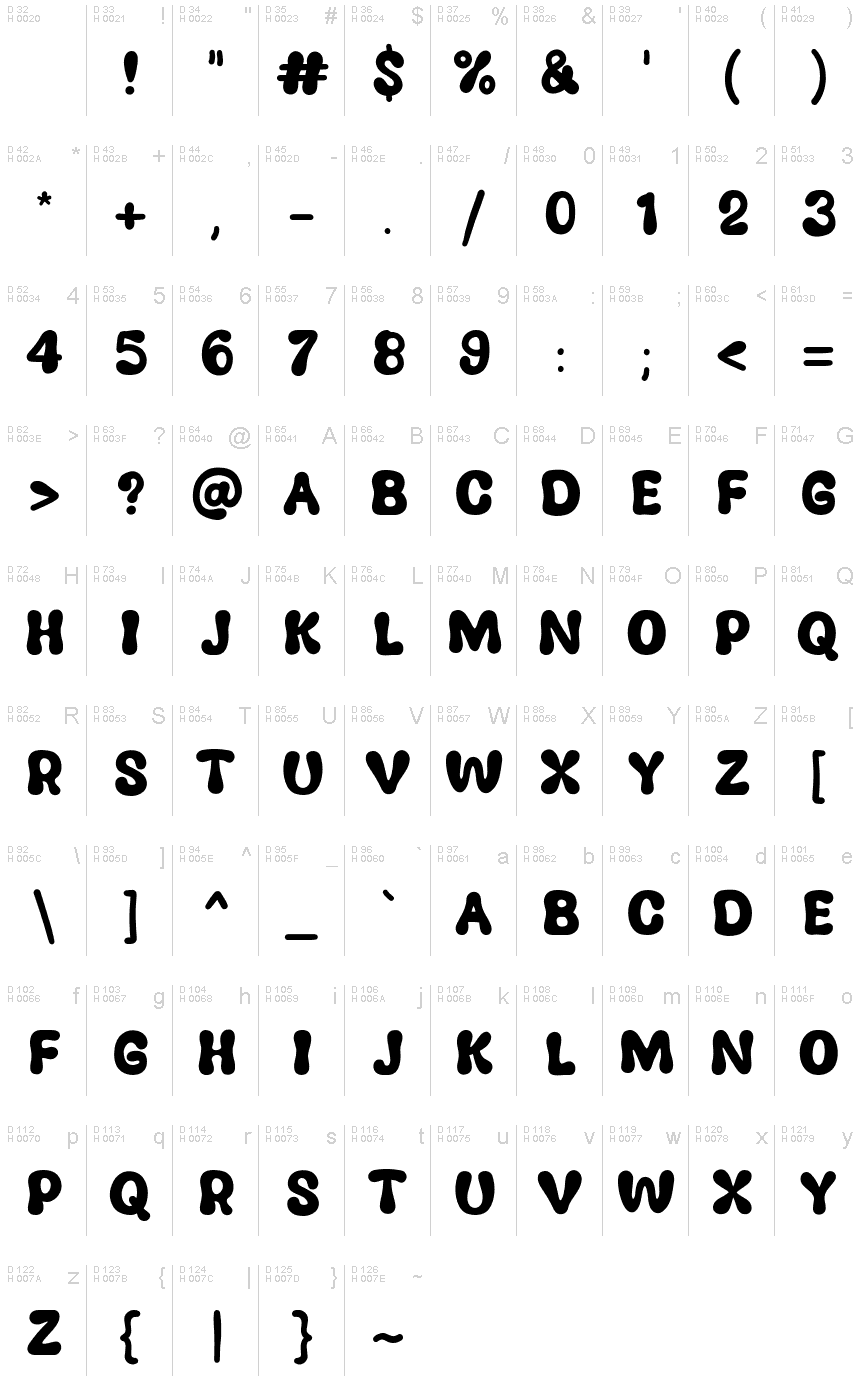
New Pizza
New Pizza, a bold display font by Khurasan, brings a playful touch to your designs.
With its cartoon style and eye-catching curves, it's perfect for creating attention-grabbing headlines and logos. Its bold weight adds an extra punch to any project, making it ideal for children's books, food packaging, and restaurant menus.
Let New Pizza bring a slice of fun into your design projects!